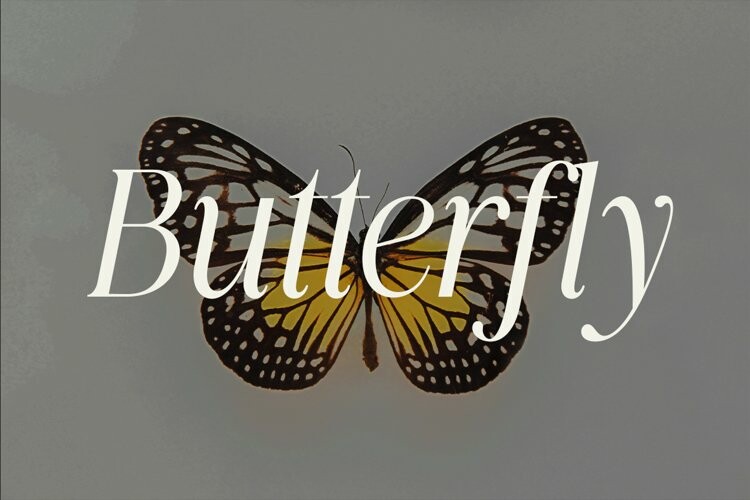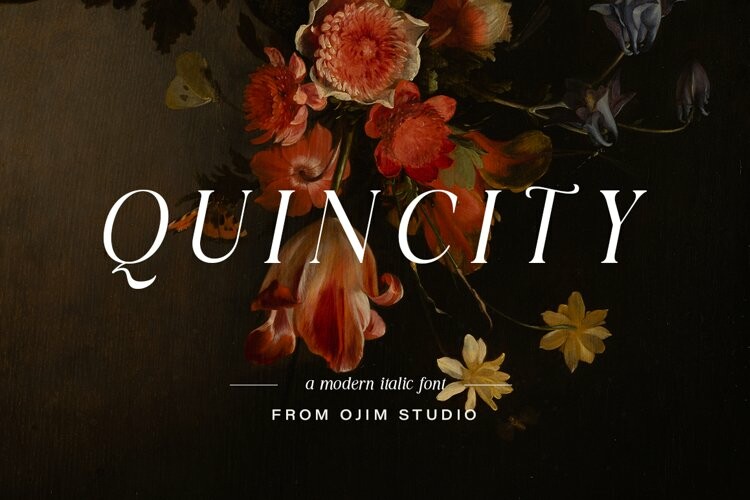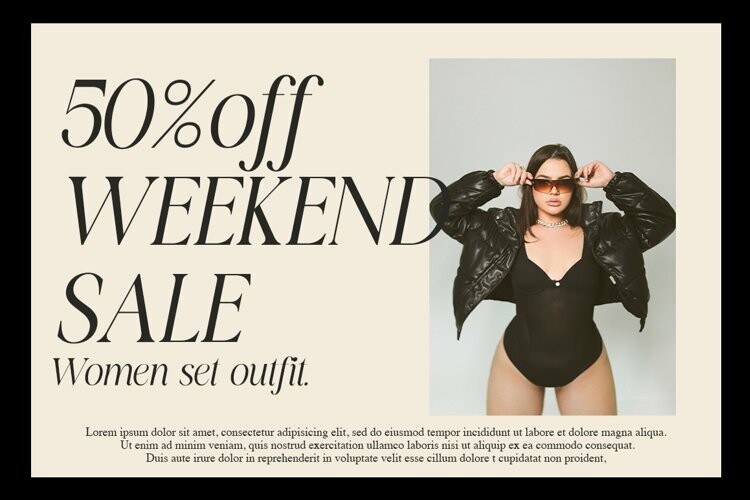
Quincity Font
Quincity FontQUINCITY is a lovely modern serif typeface that is only available in italics. It came about as a result of my obsession with a few brief italicized words on a type specimen broadside from 1785. I was able to research type history and typeface categorization much more thoroughly than I ever have previously when working on this type revival, so I’ve provided some type history with your download so you can experiment with the assortment of historical figures I’ve included (like the medial s). QUINCITY is a classy, timeless typeface that is ideal for 21st-century projects, yet being based on styles that are hundreds of years old.